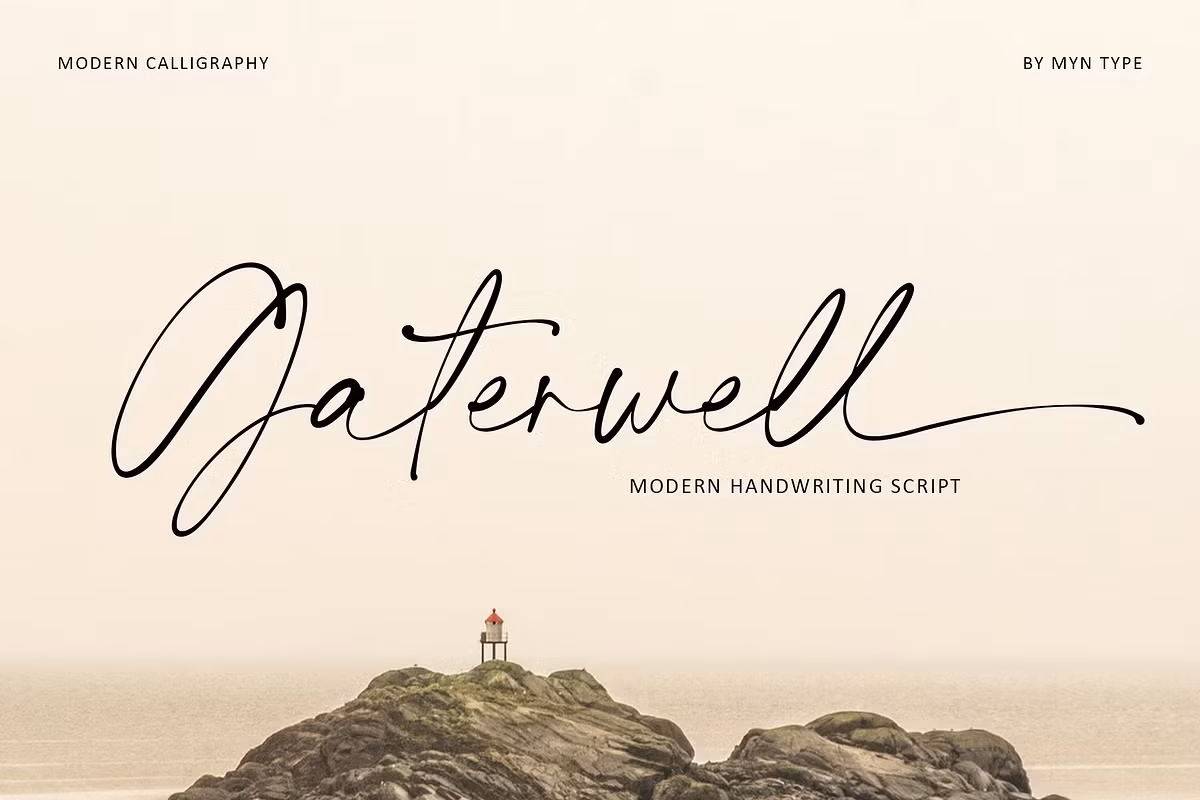
Gaterwell - Modern Chic Calligraphy Free Download
Gaterwell – Modern Chic Calligraphy Font Free Download is a luxurious and flowing script font that blends modern elegance with timeless handwritten charm. Please note, you are required to purchase this font for commercial use. It is available for free download for testing and personal projects only.
With its smooth curves, stylish swashes, and graceful letterforms, Gaterwell is perfect for wedding invitations, fashion branding, beauty products, Instagram quotes, and upscale packaging. It brings a high-end, feminine aesthetic to your typography, making every word feel effortlessly beautiful.